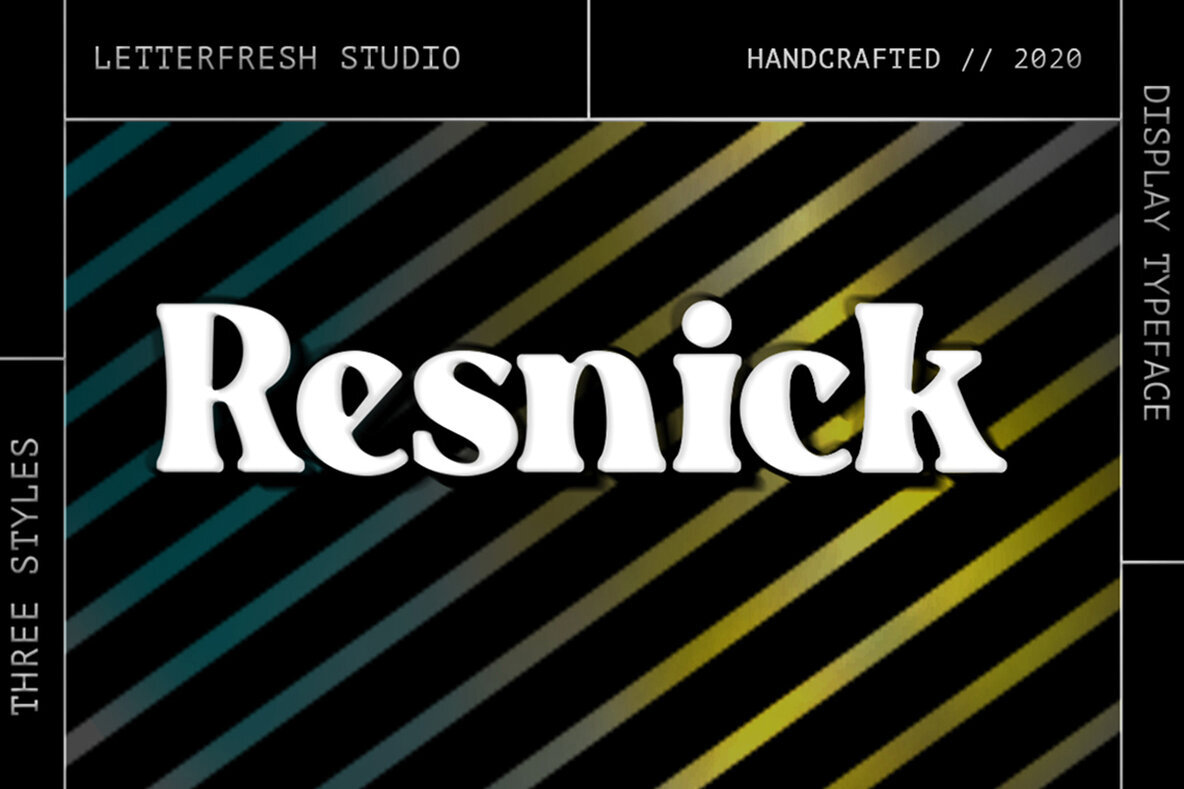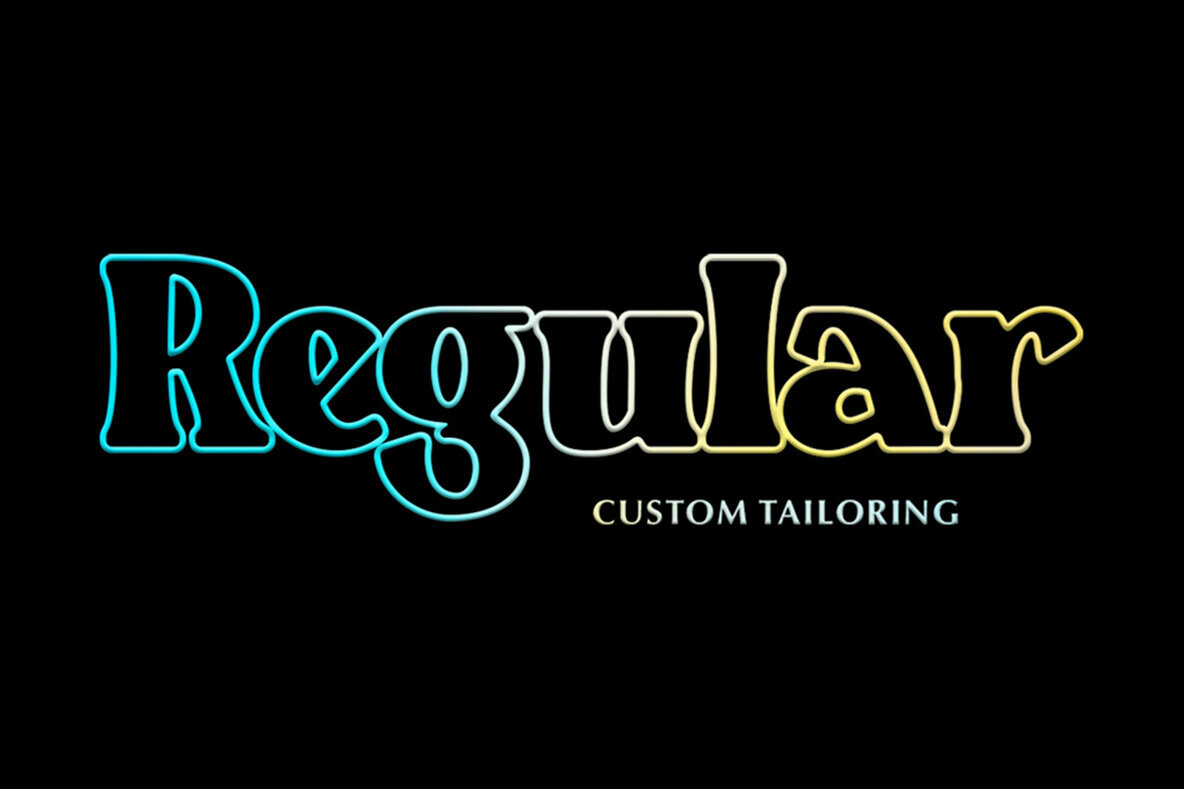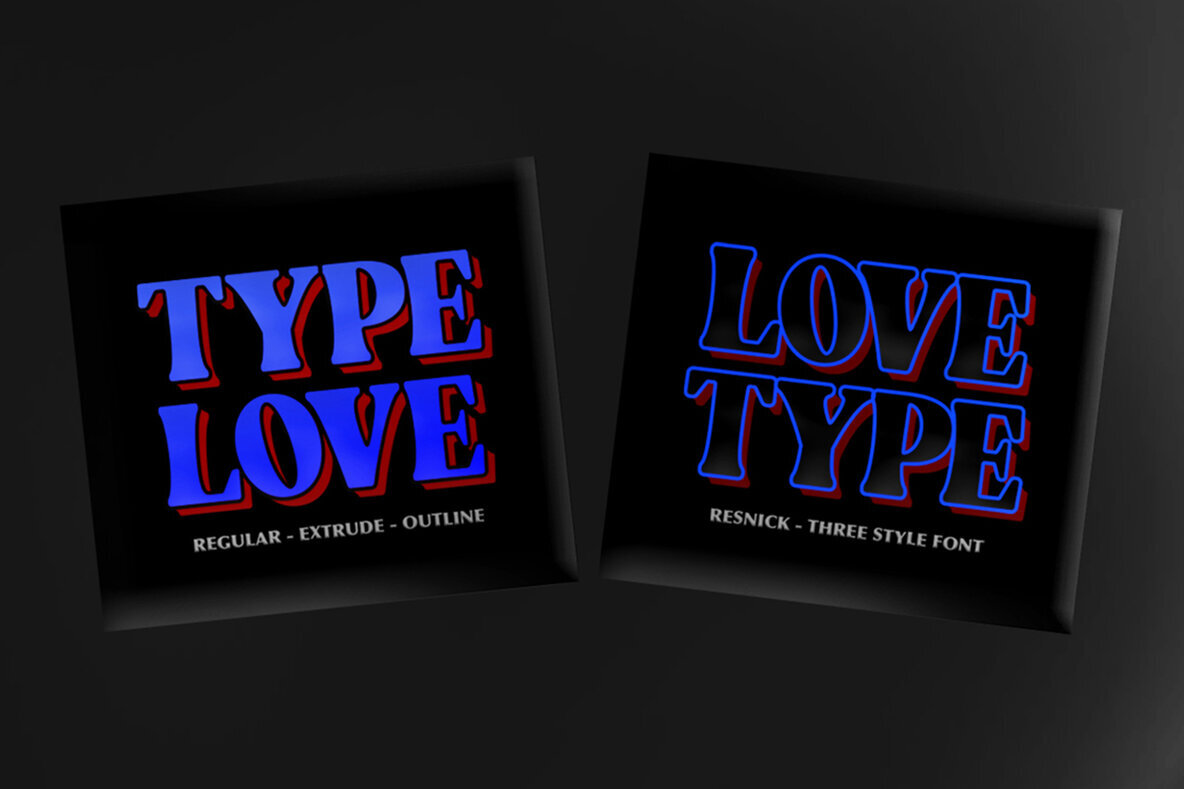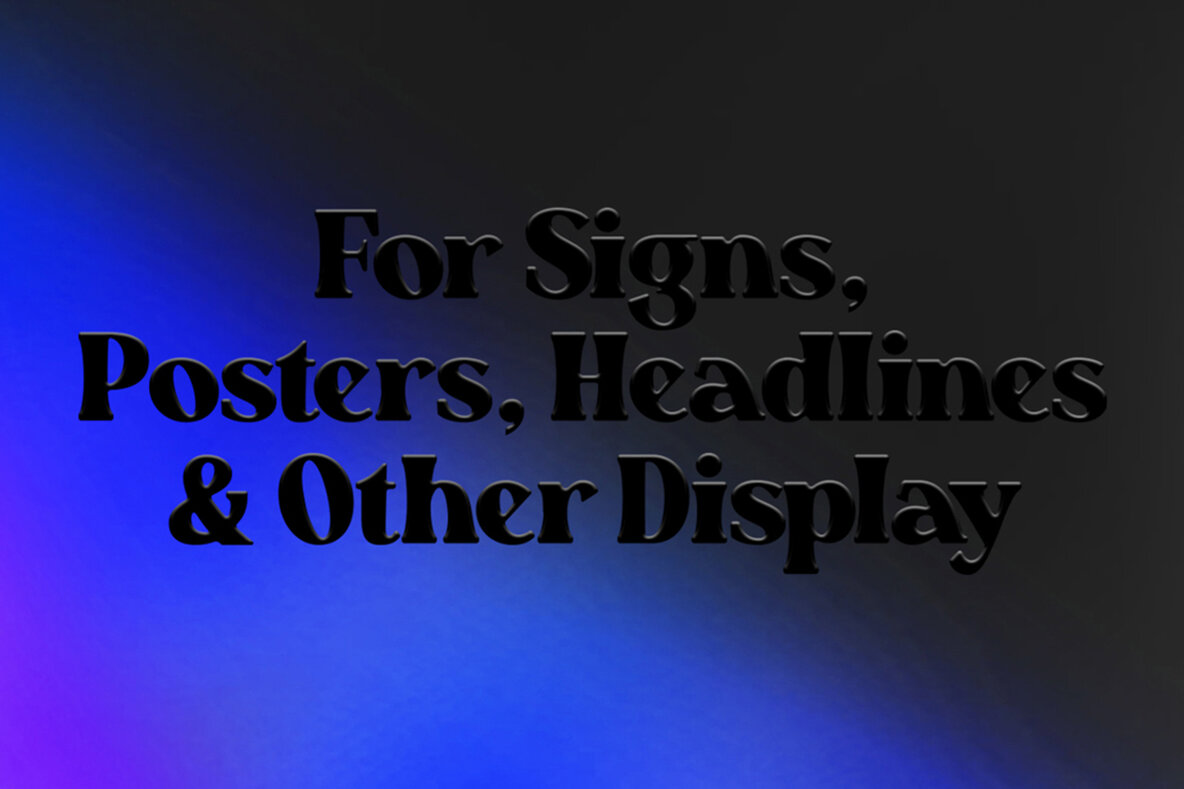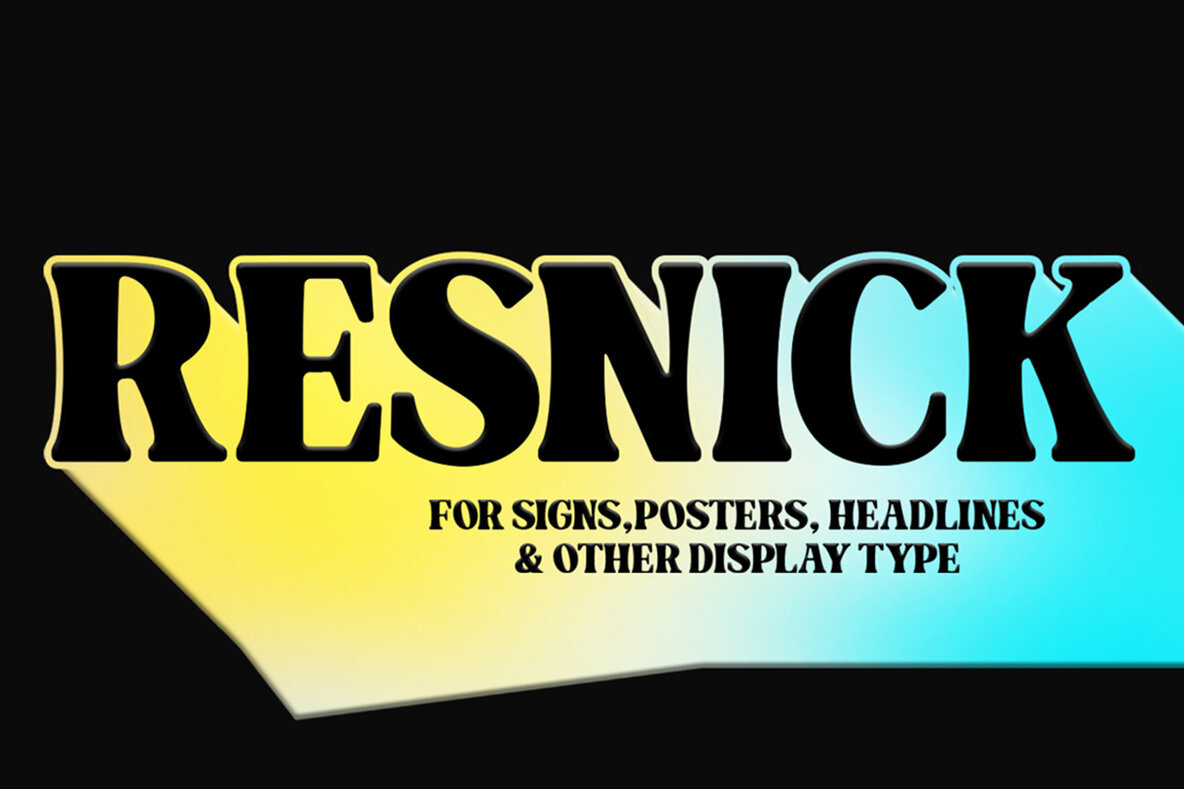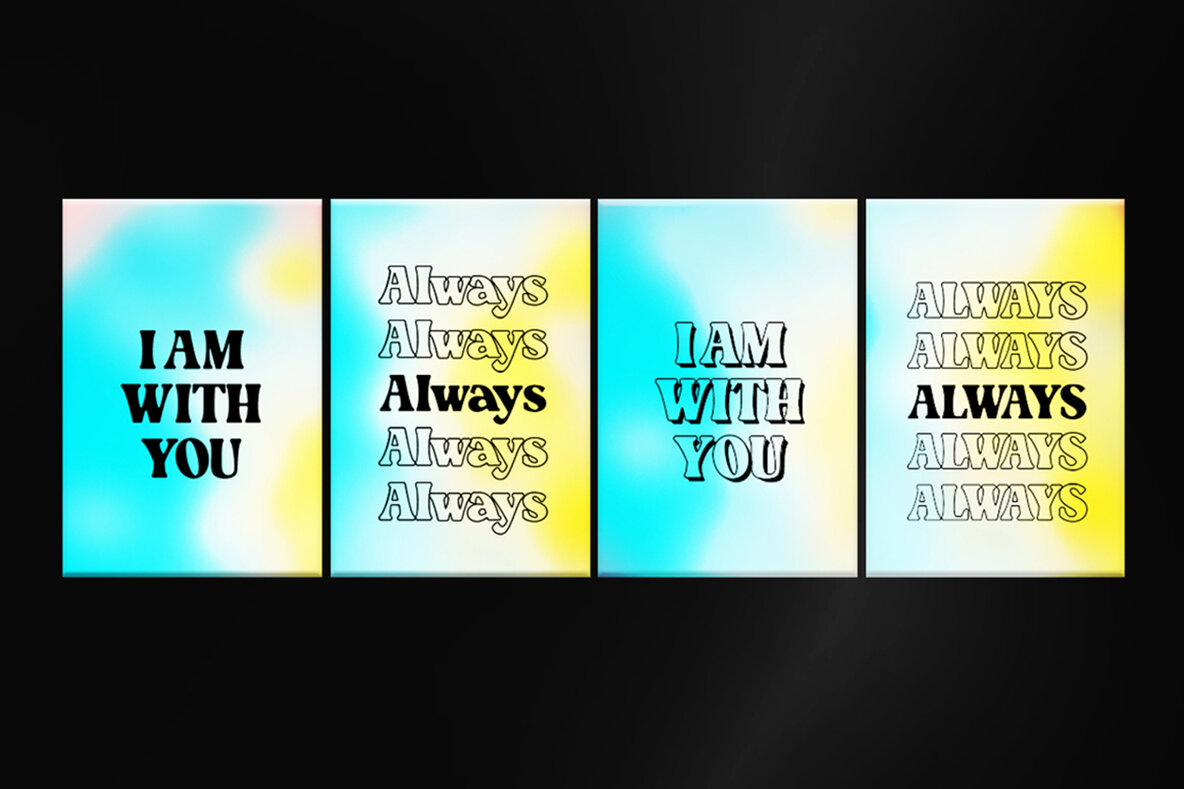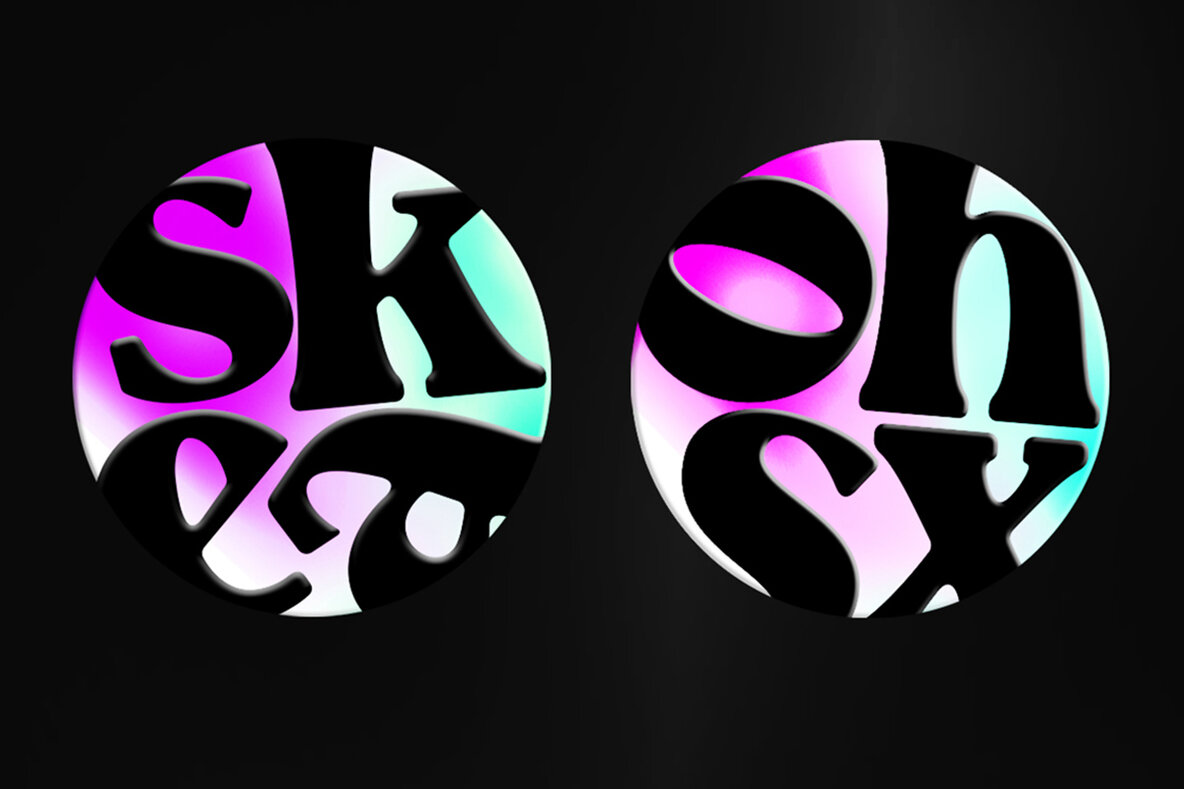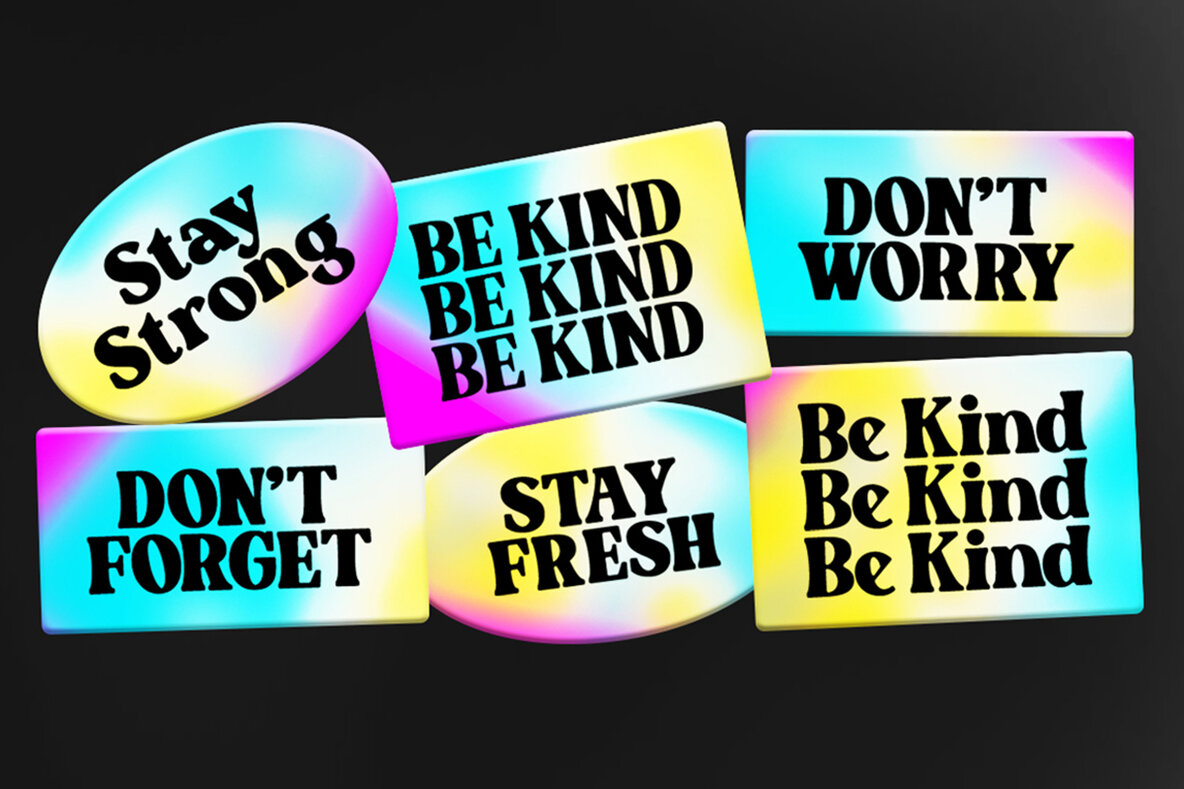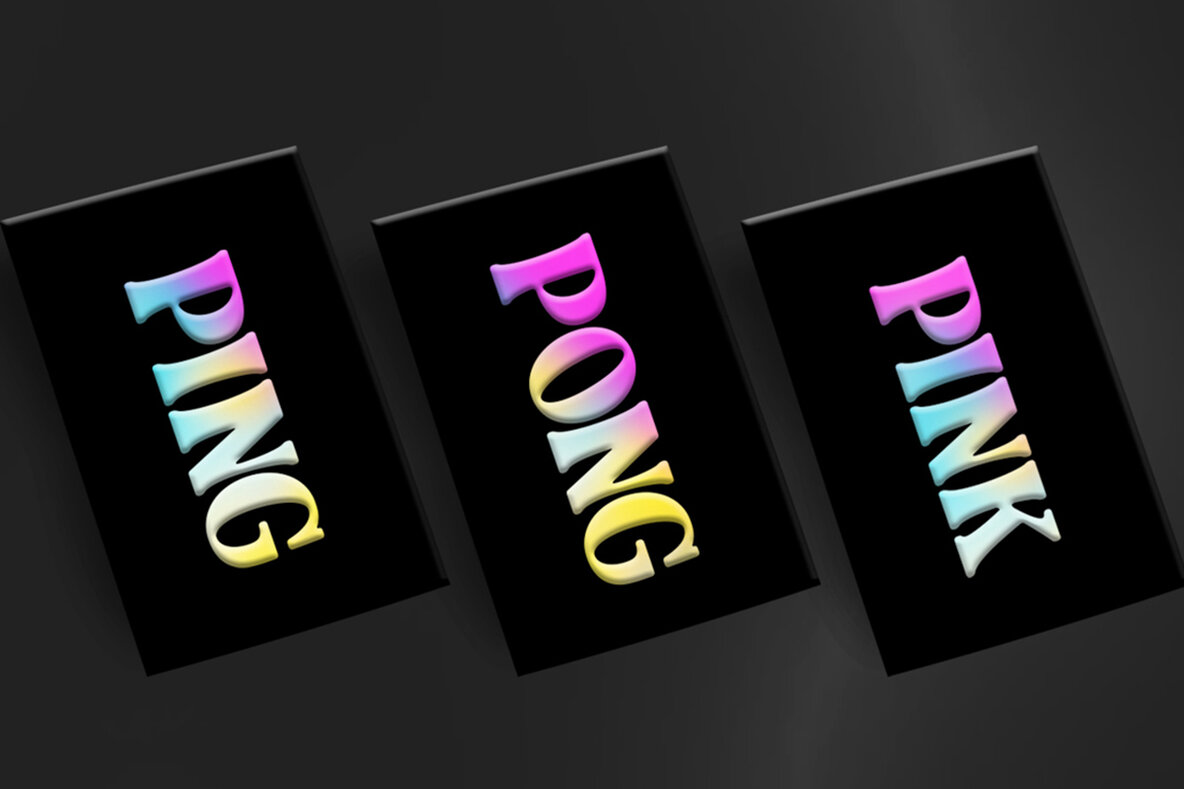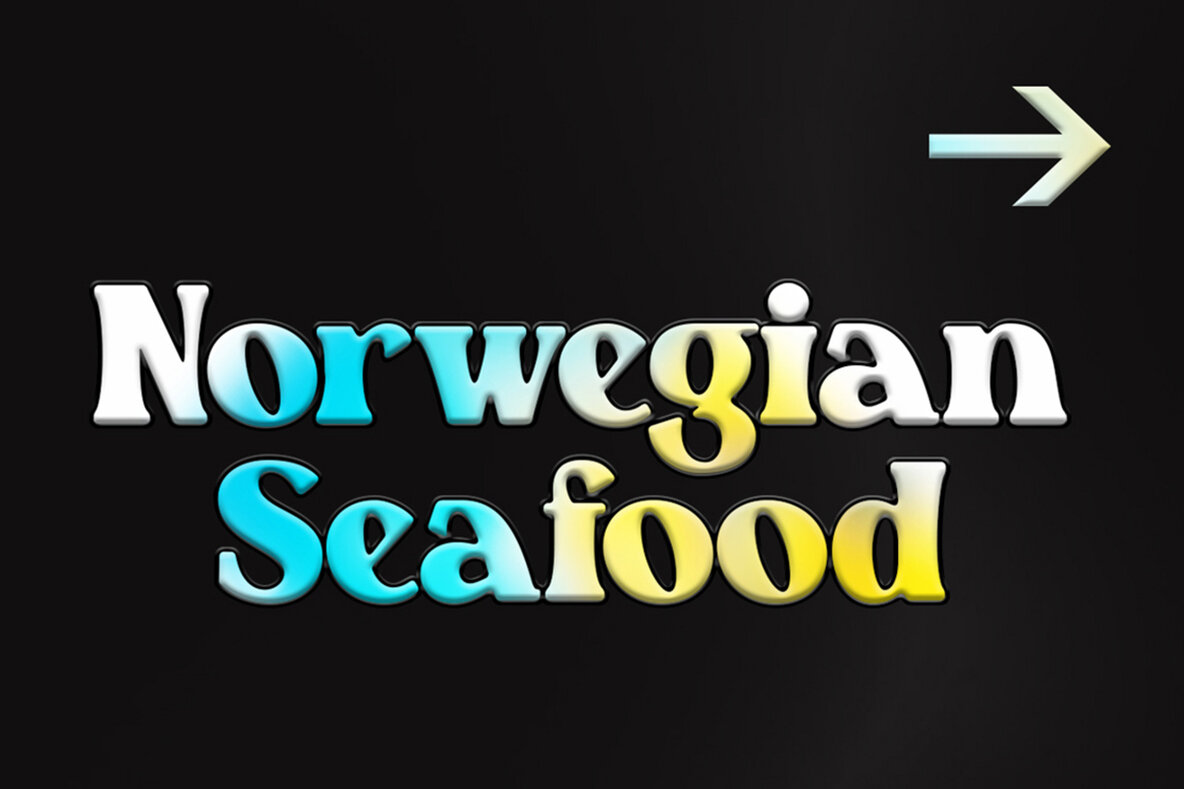
Resnick Font
Resnick Regular
Resnick Extrude
Resnick Outline
Resnick is a lavishly bold display typeface designed for impactful and versatile applications. With three distinctive styles—Regular, Outline, and Extrude—it offers a perfect fit for medium to large-scale projects. The typeface's precise linework conveys an industrial feel, underscoring its suitability for a range of creative ventures, from branding and magazines to editorial spreads and wedding invitations.Resnick Display Typeface
Versatile Features